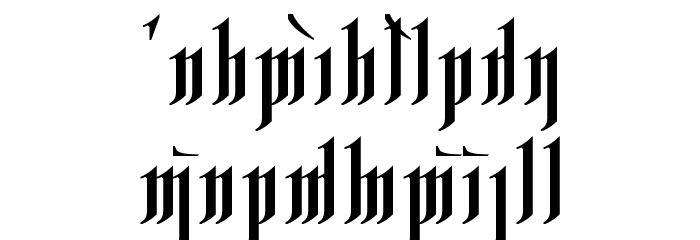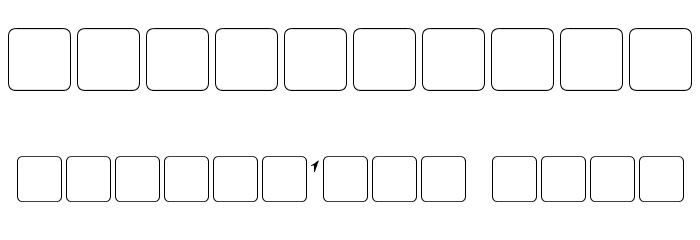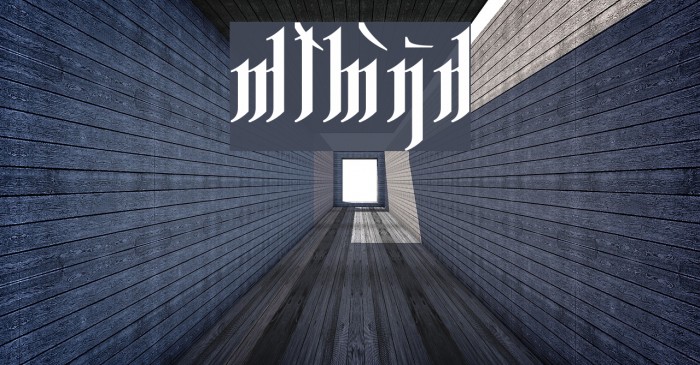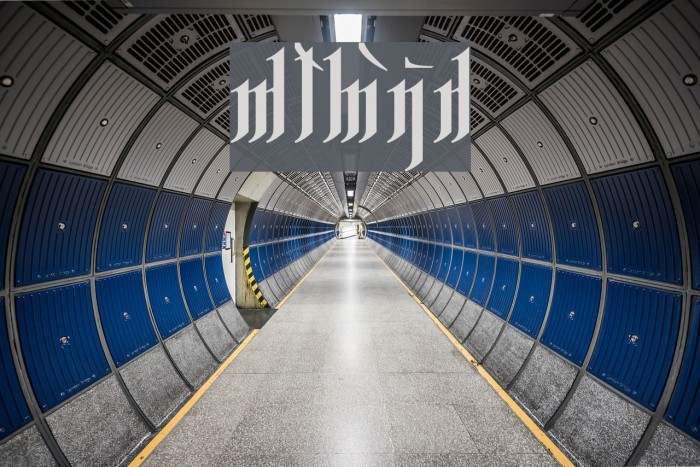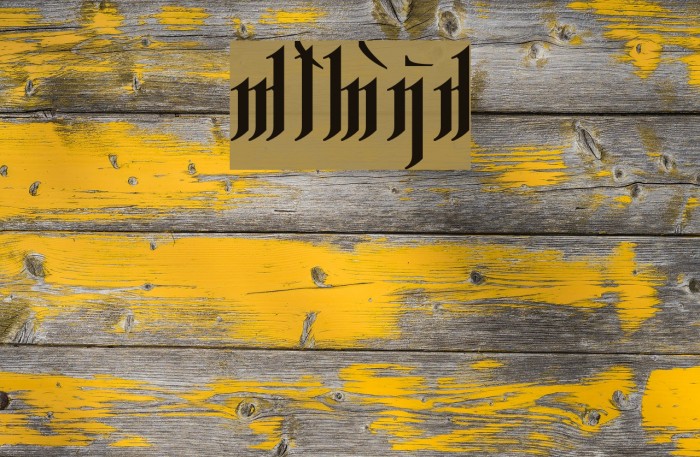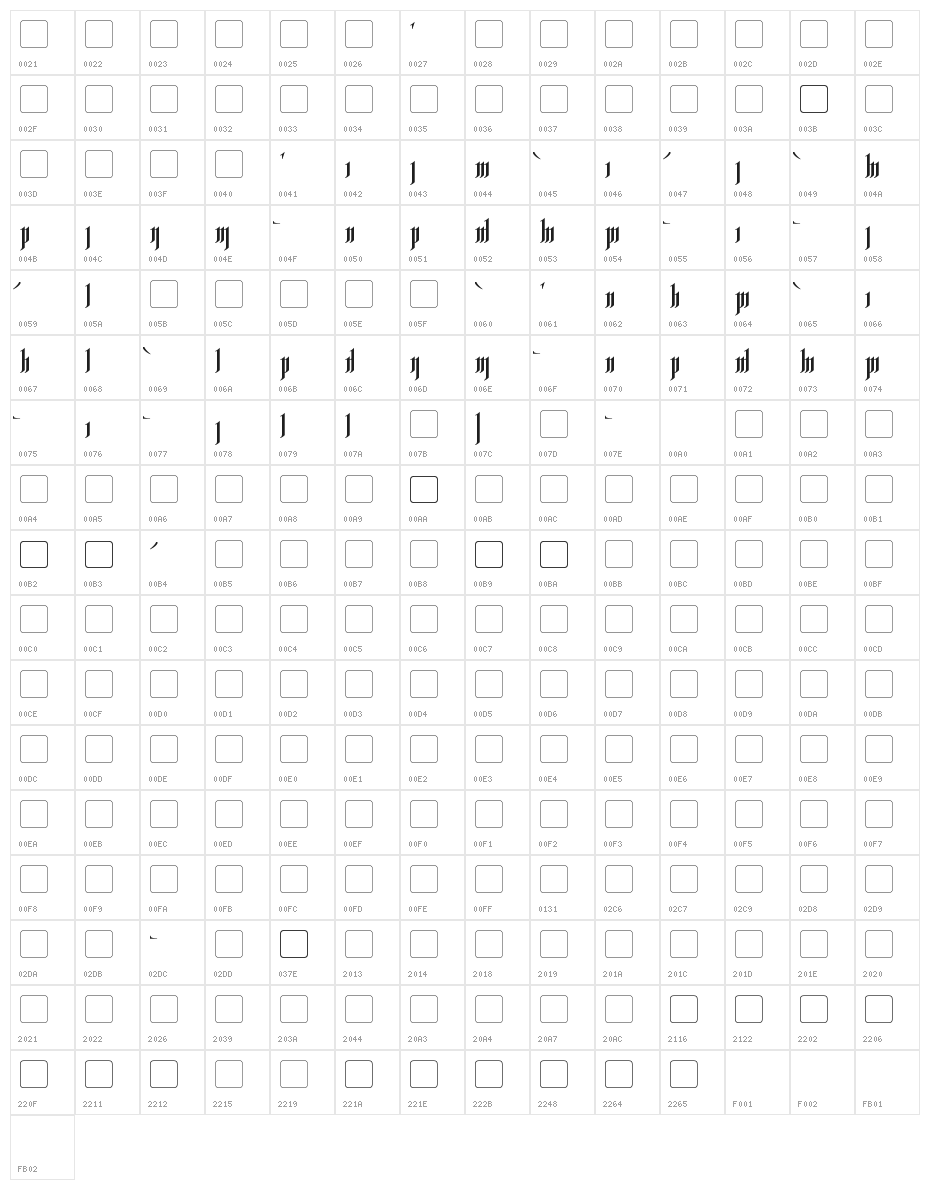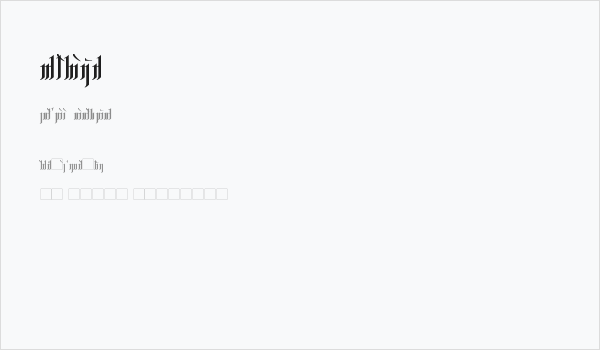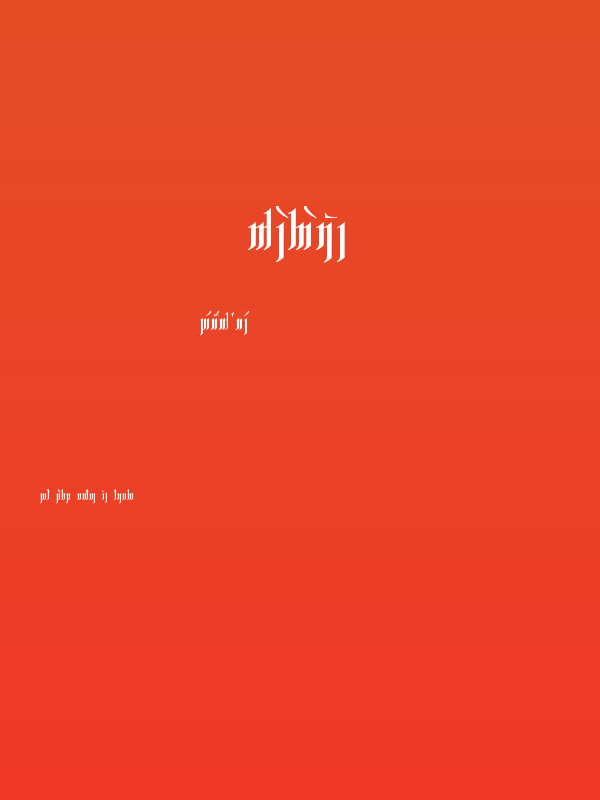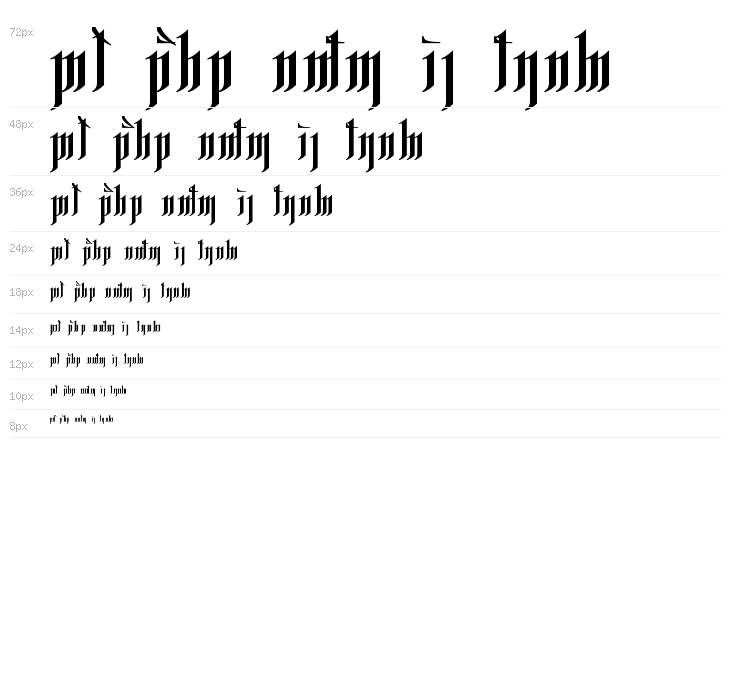
Rhesimol Font
This font is a striking example of Blackletter style, characterized by its intricate and angular letterforms. The strokes are bold and pronounced, with a high contrast between thick and thin lines, giving it a dramatic and historical appearance. The letters are tightly spaced, enhancing the dense and compact look typical of traditional Blackletter fonts. The overall design is reminiscent of medieval manuscripts, with ornate details and sharp edges that convey a sense of formality and tradition. This font is perfect for projects that aim to evoke a sense of history or classic elegance.
A bold, high-contrast Blackletter font with intricate, angular letterforms.
- Proposed Projects: Ideal for historical documents, certificates, book covers, or any design requiring a classic and formal touch.
- Category: Blackletter
- Character Spacing: Tight
- Overall Style: Classic
- Use Case: Logos, Headlines, Decorative text